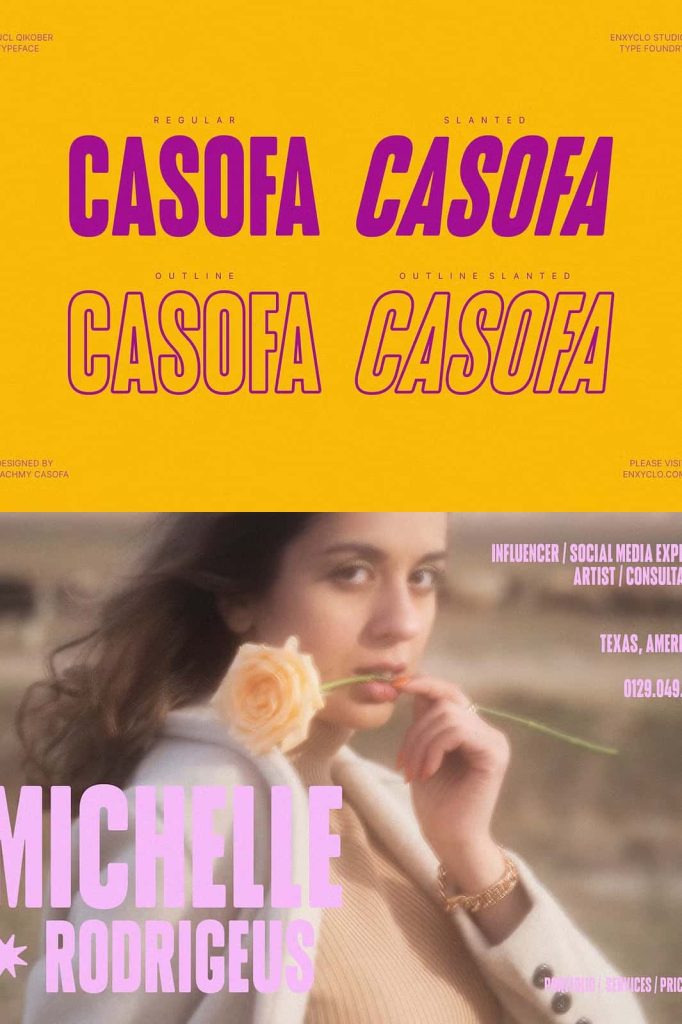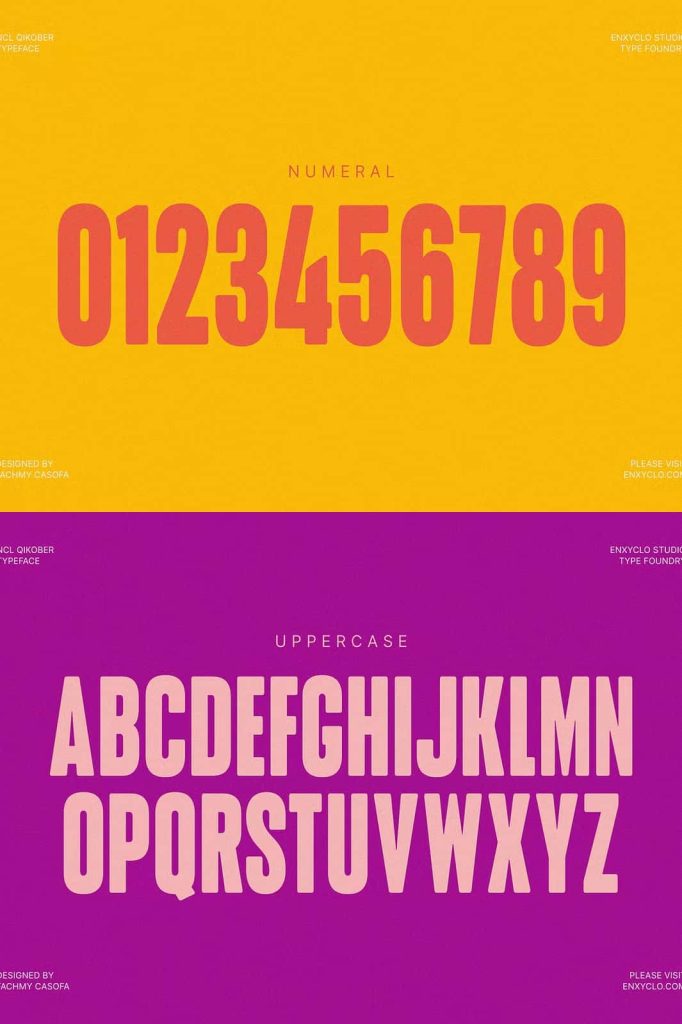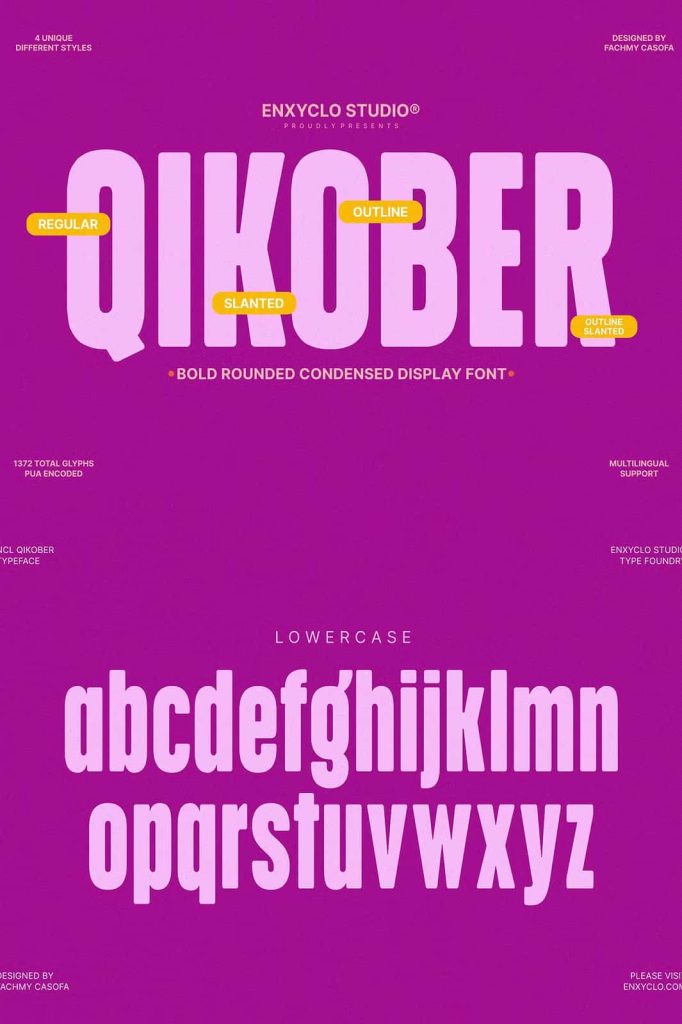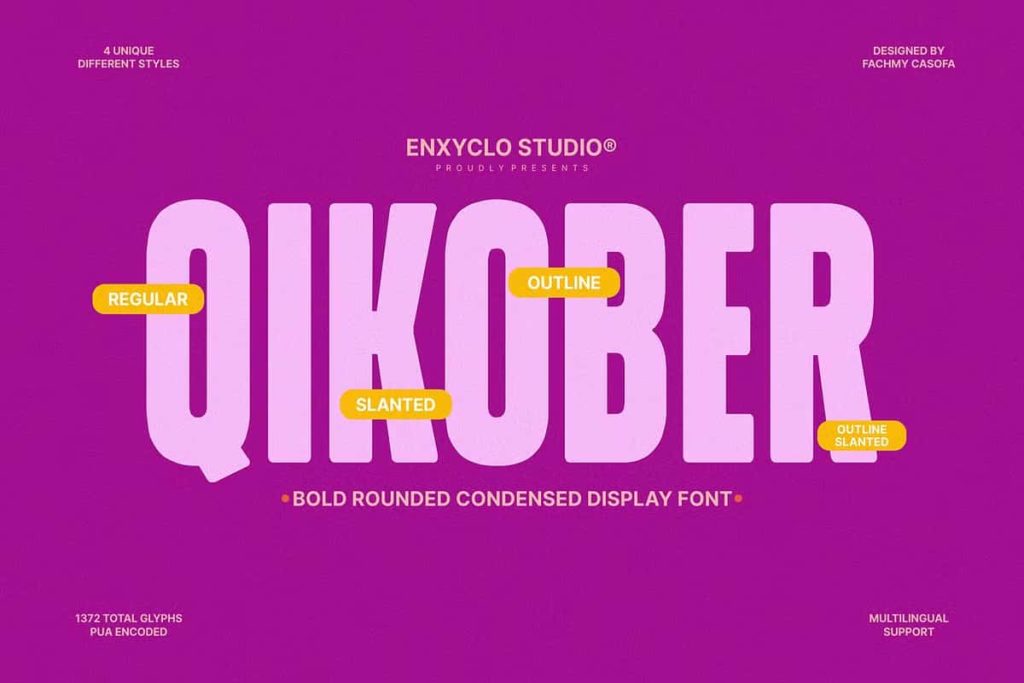
NCL QIKOBER – Condensed Font
NCL QIKOBER Bold Rounded Condensed Font
NCL QIKOBER is a bold rounded condensed font created to deliver maximum visual impact across a wide variety of creative projects. Combining a strong condensed structure with smooth rounded edges, this typeface offers the perfect balance between confidence and friendliness. Whether you are designing a large billboard, creating a memorable logo, building a modern website, or producing attention-grabbing social media graphics, NCL QIKOBER gives your typography a distinctive and professional appearance.
This versatile font was carefully designed to perform exceptionally well in large display sizes while maintaining excellent readability in smaller text applications. Its clean letterforms and balanced proportions allow designers to create bold headlines without sacrificing clarity. From commercial branding to editorial layouts, NCL QIKOBER helps every design communicate with confidence and style.
Modern Design with Strong Visual Presence
NCL QIKOBER features a contemporary condensed style that naturally draws attention. The rounded corners soften the overall appearance, making the font feel approachable while still maintaining a bold and commanding personality. This combination makes it suitable for businesses, creative agencies, startups, entertainment brands, and anyone looking to create typography that leaves a lasting impression.
The condensed structure allows you to fit more characters into limited spaces without making your designs feel crowded. This makes the font especially useful for posters, banners, magazine covers, packaging, advertising materials, and website headers where space is valuable but visual impact remains essential.
Perfect for Headlines and Display Typography
One of the greatest strengths of NCL QIKOBER is its ability to create powerful headlines. Large typography demands a font with personality, and this typeface delivers exactly that. The thick strokes, rounded terminals, and carefully balanced spacing work together to create titles that immediately capture attention.
Whether you are designing promotional materials, event posters, product launches, YouTube thumbnails, or marketing campaigns, NCL QIKOBER provides the visual strength needed to make your message impossible to ignore.
Ideal Applications
• Brand identity and logo design
• Business branding materials
• Website headers and landing pages
• Magazine covers and editorial layouts
• Advertising campaigns
• Billboards and outdoor signage
• Poster and flyer designs
• Social media graphics
• Packaging and product labels
• Video titles and motion graphics
Excellent Readability at Different Sizes
Although NCL QIKOBER was intentionally developed for large display typography, it performs remarkably well at smaller sizes too. The carefully crafted letterforms maintain their clarity even when used in compact layouts. This flexibility allows designers to use the same font family consistently throughout an entire branding project, creating a unified visual identity across multiple platforms.
The balanced spacing between letters helps improve readability while preserving the font’s bold appearance. Whether printed or displayed digitally, the text remains clean, crisp, and visually appealing.
A Versatile Font for Creative Professionals
NCL QIKOBER adapts effortlessly to numerous design styles. Its modern appearance complements minimalist layouts, while its bold personality enhances vibrant and energetic compositions. Graphic designers, marketers, content creators, branding specialists, and web designers can all benefit from the flexibility this typeface provides.
Its rounded details add warmth to otherwise bold typography, making it suitable for industries ranging from technology and fashion to food, entertainment, sports, education, and lifestyle brands. This versatility makes NCL QIKOBER a dependable addition to any professional font collection.
Create Memorable Branding
Strong branding begins with memorable typography. NCL QIKOBER helps businesses establish a recognizable visual identity through its unique combination of boldness and simplicity. The condensed letterforms maximize space while maintaining a distinctive appearance that customers can easily recognize.
Whether you are developing a new brand or refreshing an existing one, this font gives logos, packaging, business cards, promotional materials, and digital assets a polished and modern finish. Its distinctive style helps your brand stand apart in competitive markets while maintaining excellent readability.
Why Choose NCL QIKOBER?
Choosing the right display font can significantly improve the effectiveness of your visual communication. NCL QIKOBER delivers both style and functionality, making it an excellent investment for designers who value versatility and professional results.
• Bold rounded condensed design with modern appeal.
• Excellent performance in large display sizes.
• Maintains readability in smaller text applications.
• Suitable for both print and digital projects.
• Works well across multiple industries and design styles.
• Creates strong visual hierarchy for headlines and titles.
• Ideal for logos, branding, posters, websites, and magazines.
Enhance Every Creative Project
NCL QIKOBER offers more than attractive typography—it provides designers with a reliable creative tool capable of elevating countless projects. Its bold personality, rounded details, and space-saving condensed construction allow you to produce striking visuals without compromising readability.
From eye-catching advertising campaigns to sophisticated branding systems, this font adapts to virtually any creative challenge. Whether you are producing printed materials, digital content, editorial publications, or promotional graphics, NCL QIKOBER gives every design a professional finish that captures attention and strengthens your message.